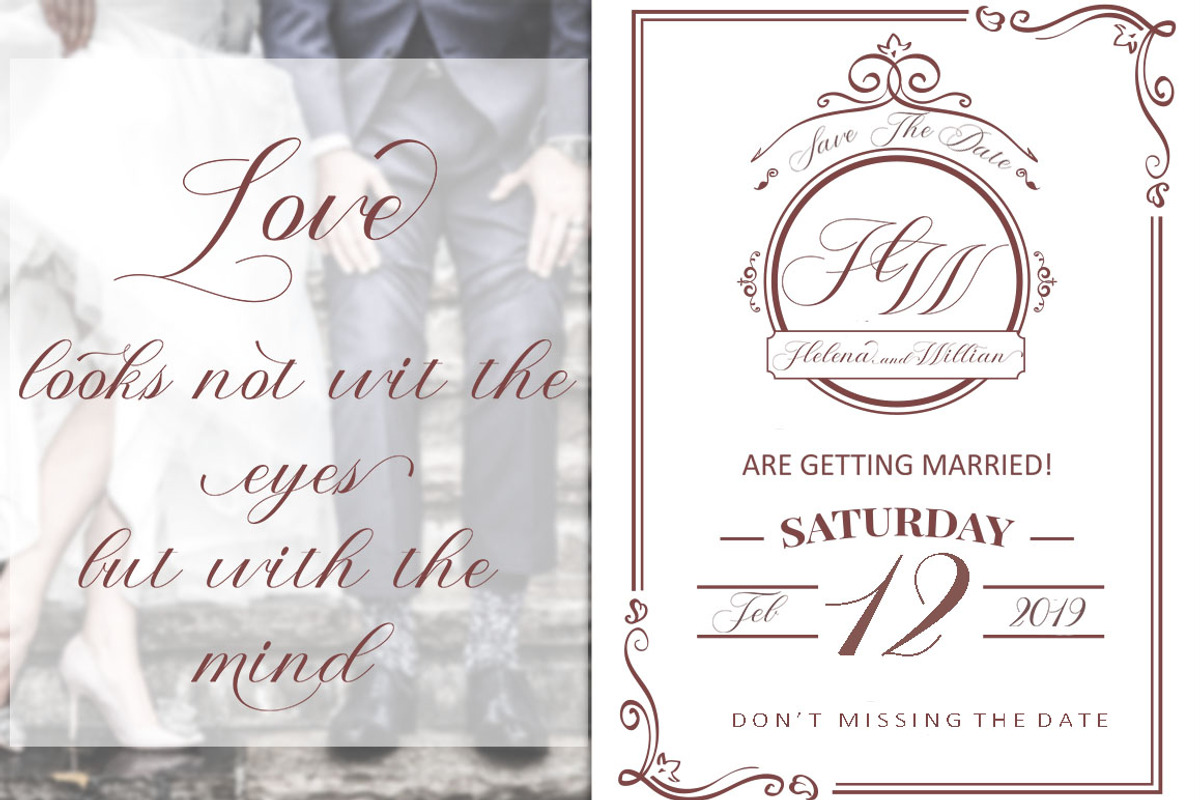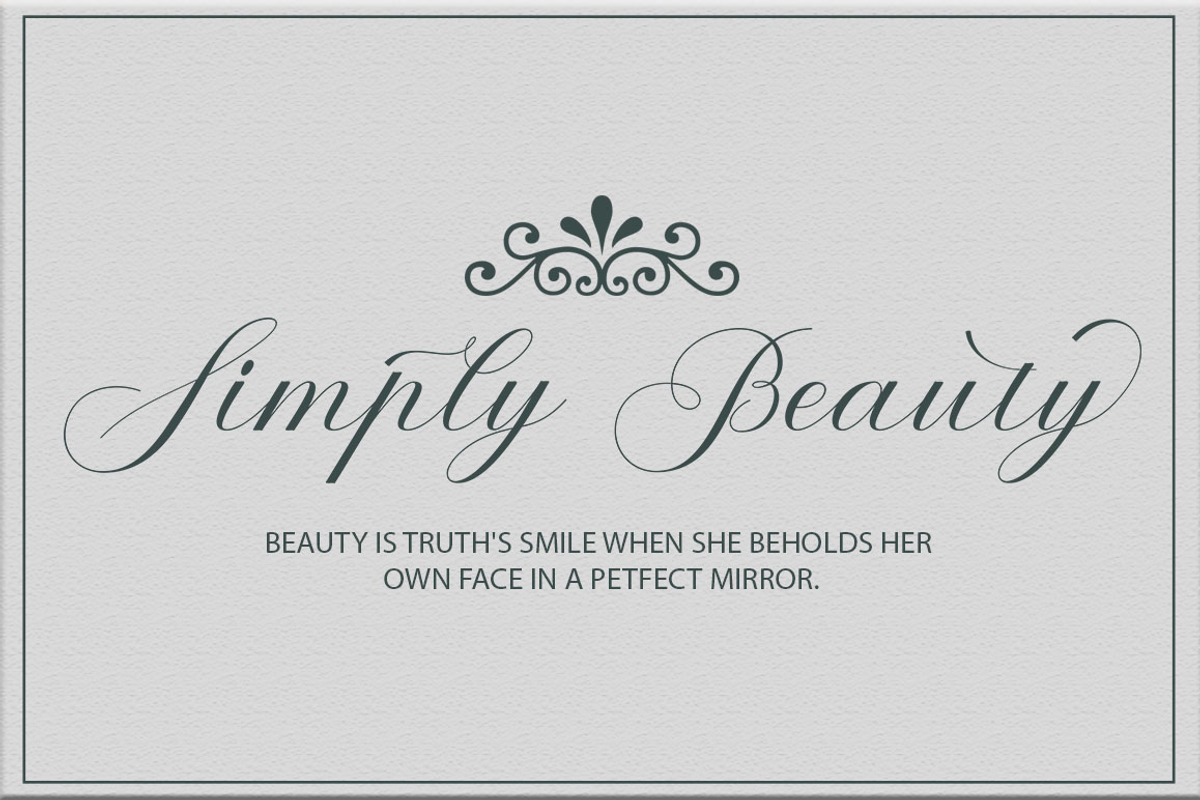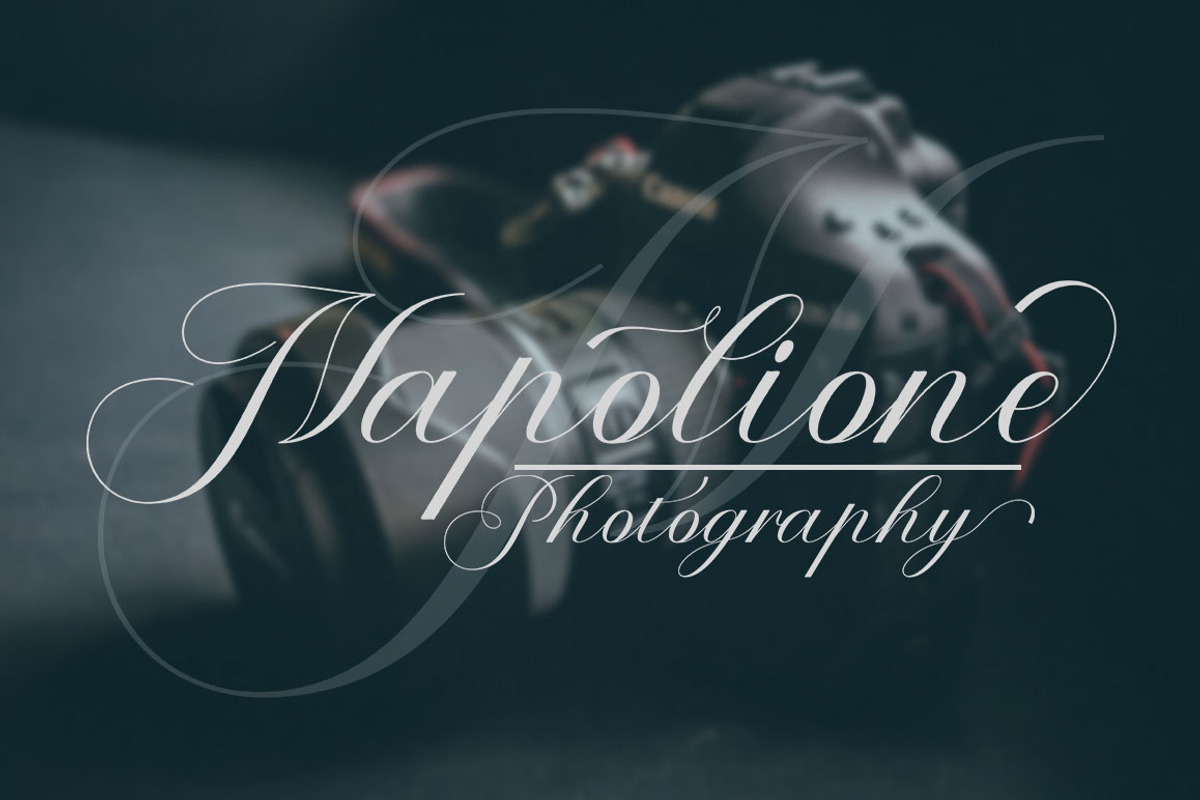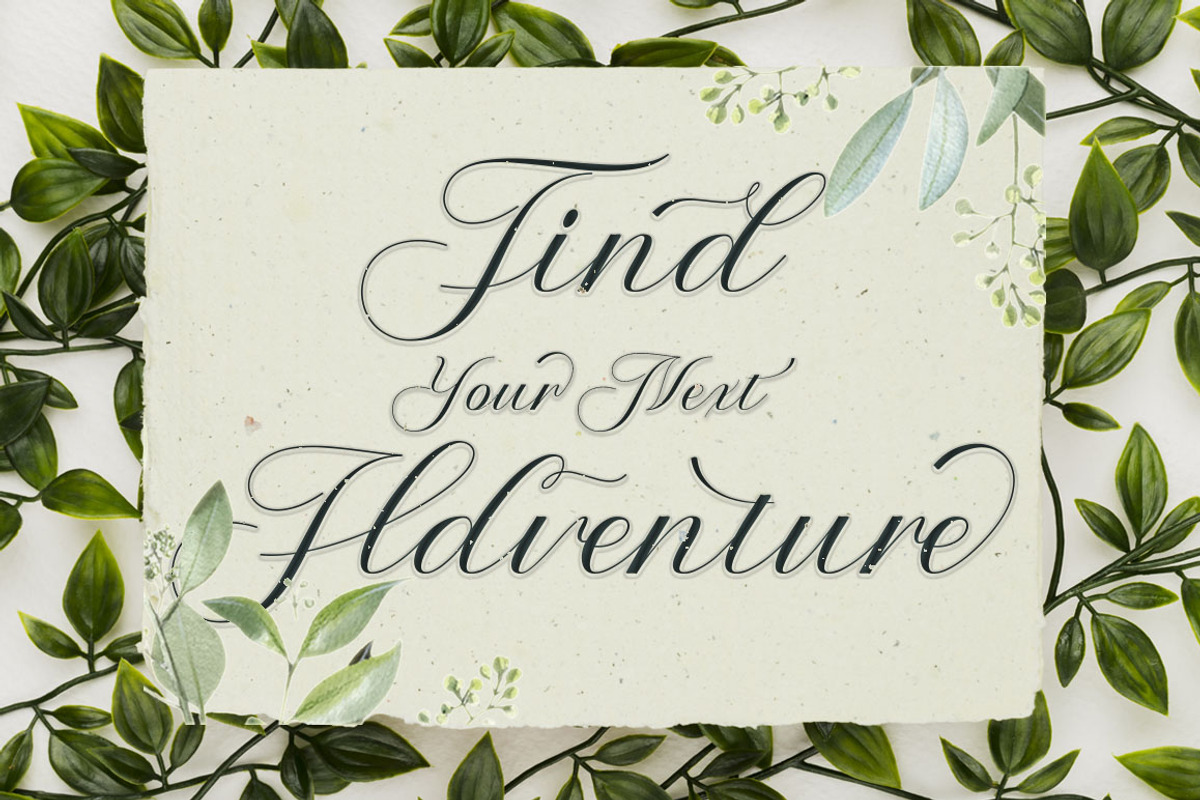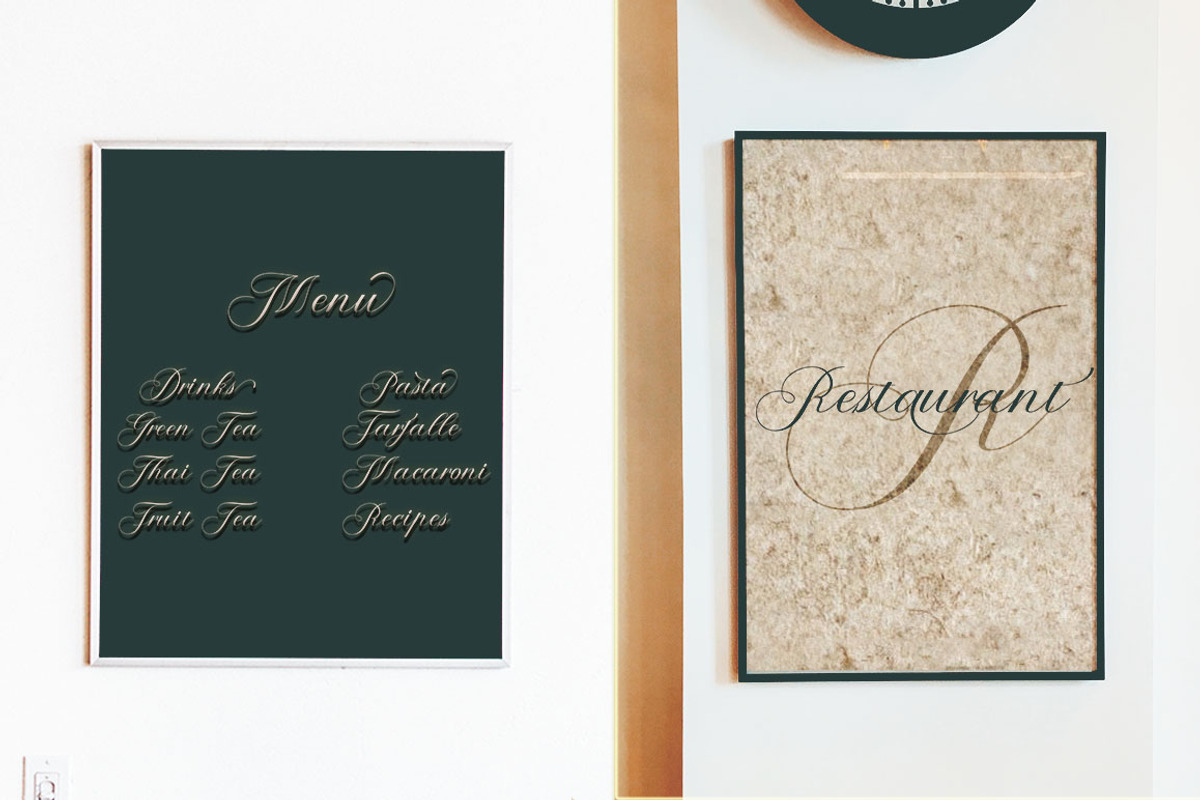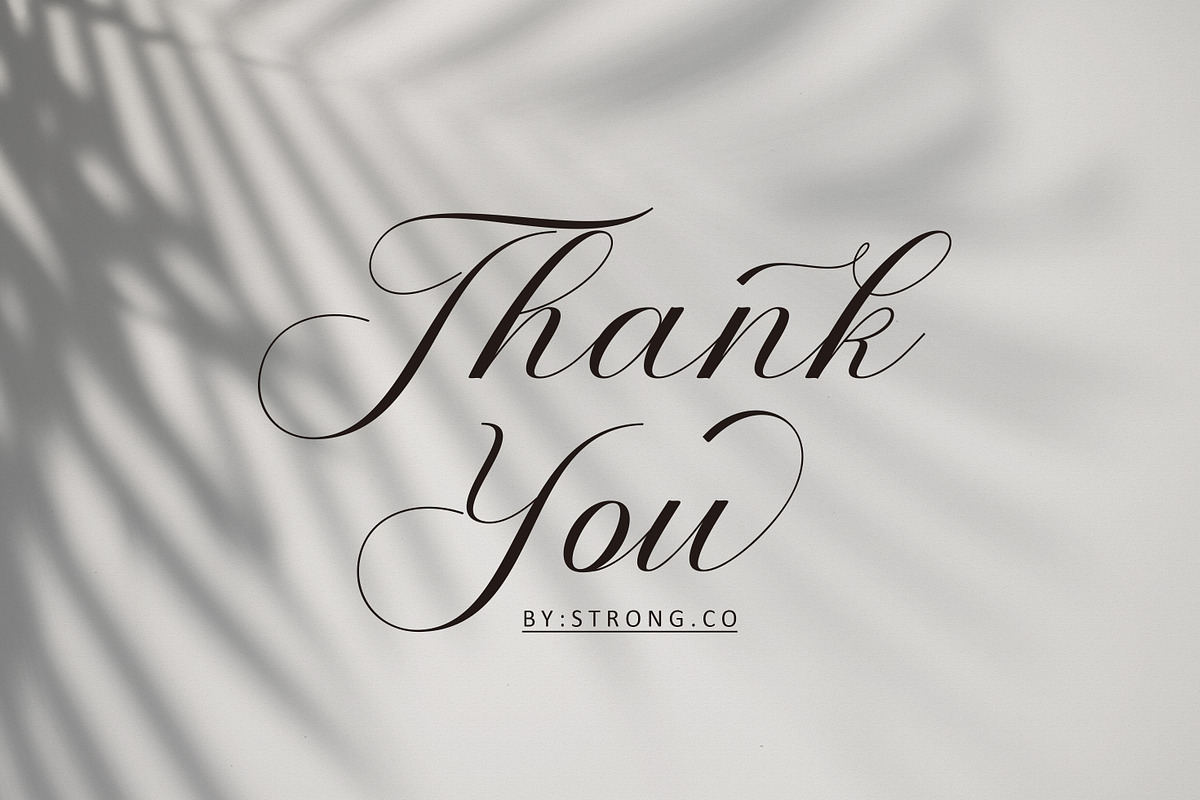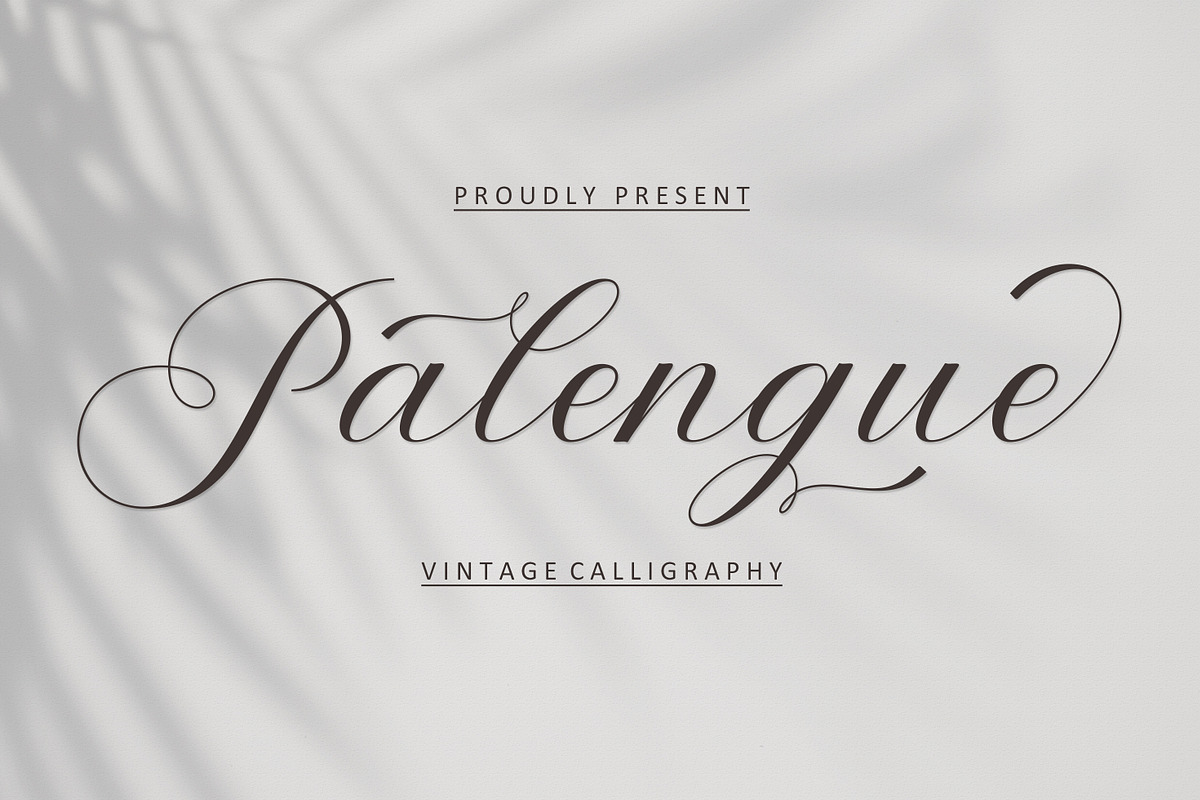
Palengue Script
Latest Palengue scrip
Palengue is an incredibly elegant and delicate handwritten font. It has beautiful and well balanced characters and as a result, it matches a wide pool of designs. Palengue features a varying baseline, smooth lines, gorgeous glyphs and stunning alternates.
Palengue script with a modern calligraphy type font, I hope you are interested in this font, if you want to use it for your work, this font can be used easily and simply because it contains many features that contain a complete set of upper and lowercase letters. letters, various kinds of punctuation. , numbers, and multilingual support. This font also contains several alternative ligatures and Style Stylistic Sets for those of you who have software capable of running OpenType (Photoshop / Illustrator / InDesign).
Palengue Script is suitable for today's growing design market, this font has a trendy, natural and subtle style, with this font you can use every moment as a great way to accentuate the celebration.
your best party, because this font will support for purposes such as wedding invitations, parties, graduations, birthdays, social gathering, etc.